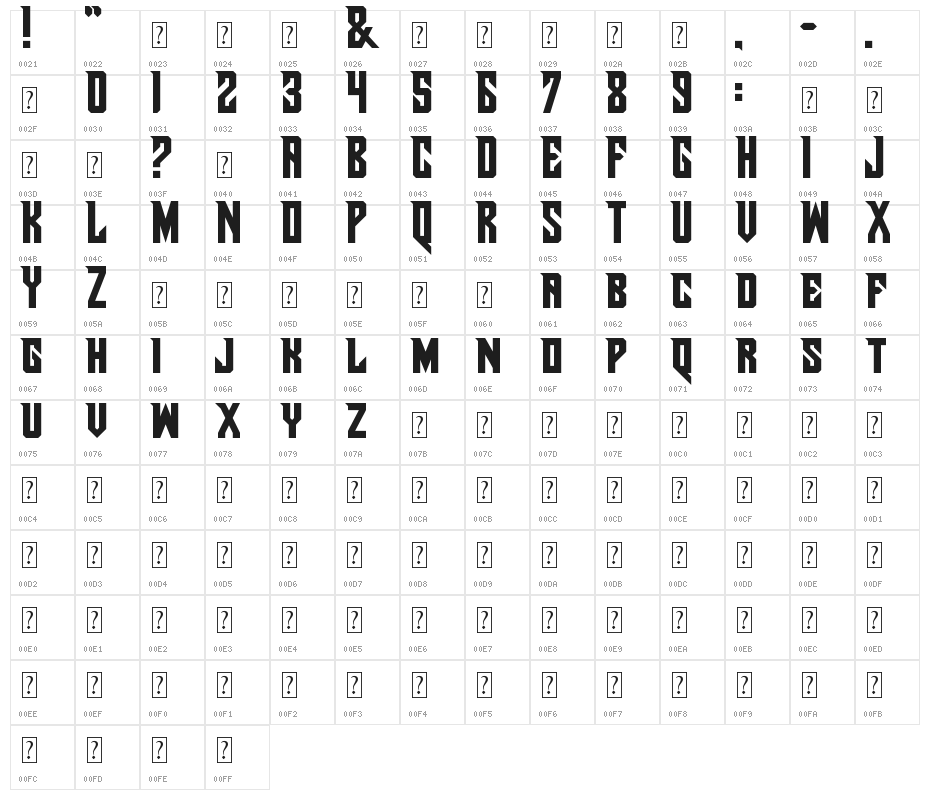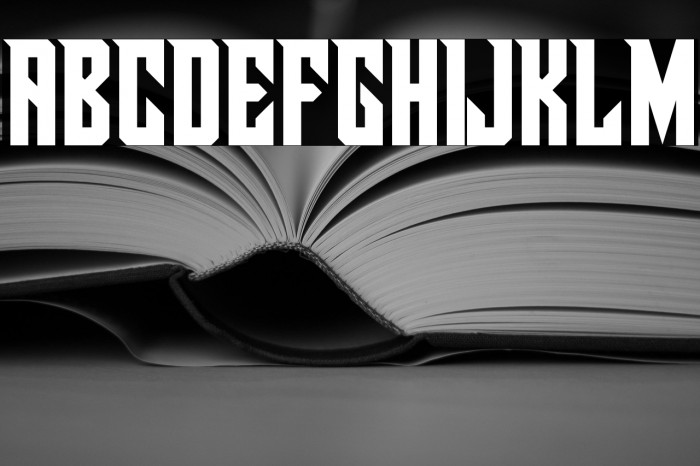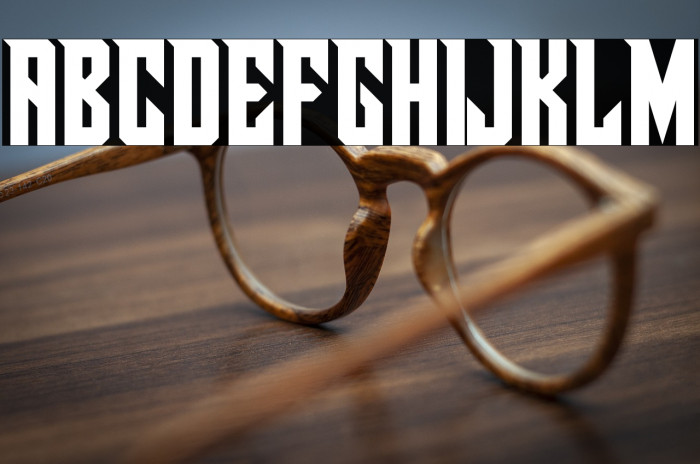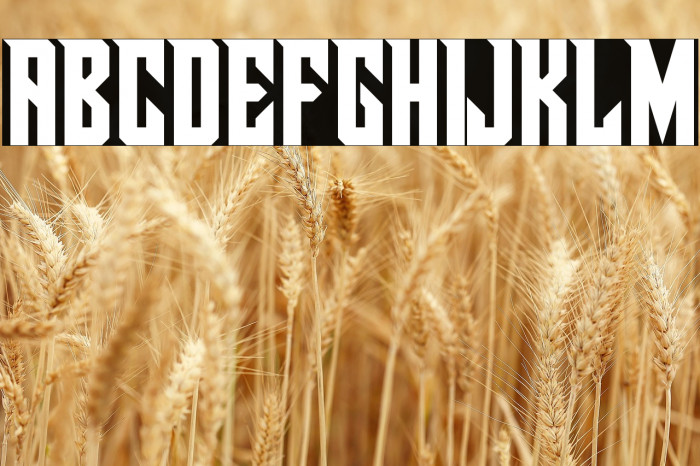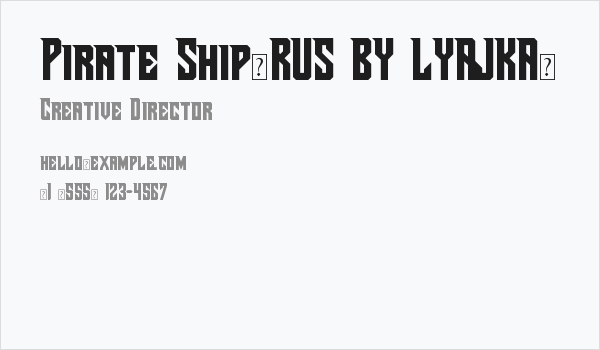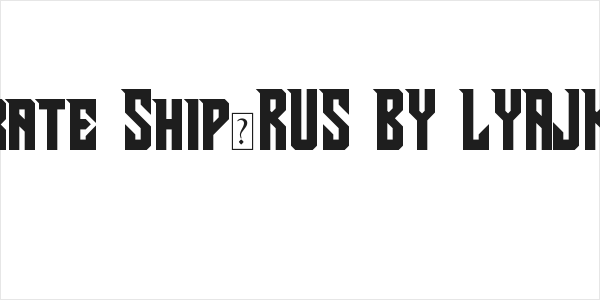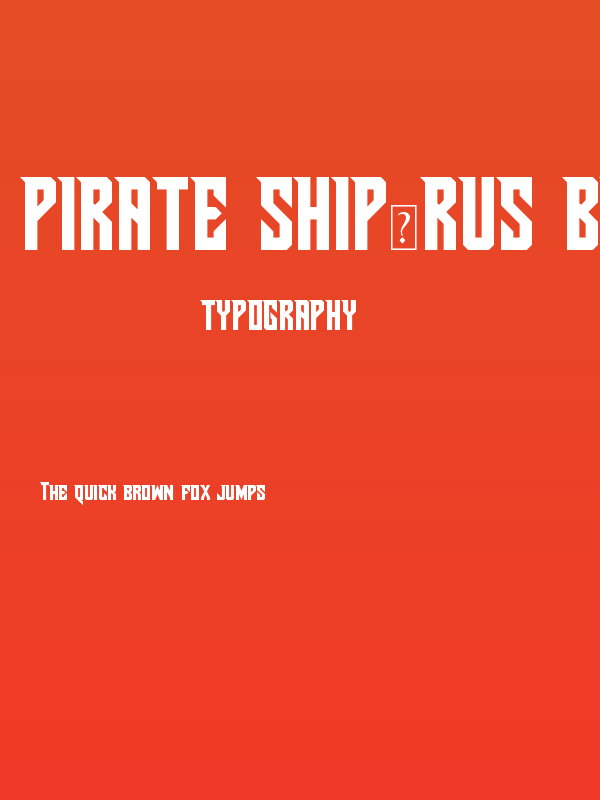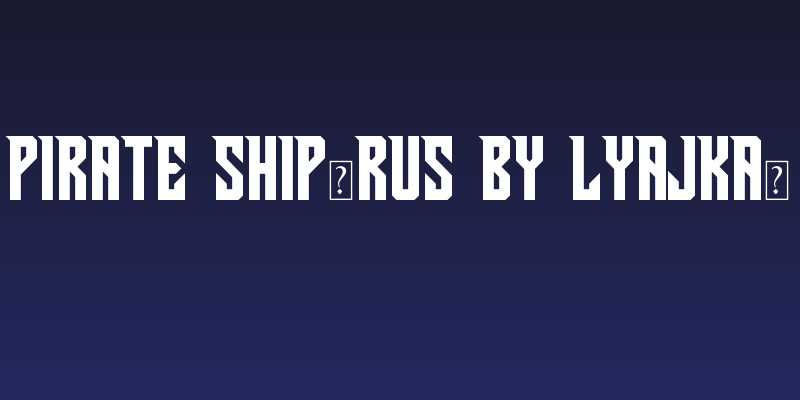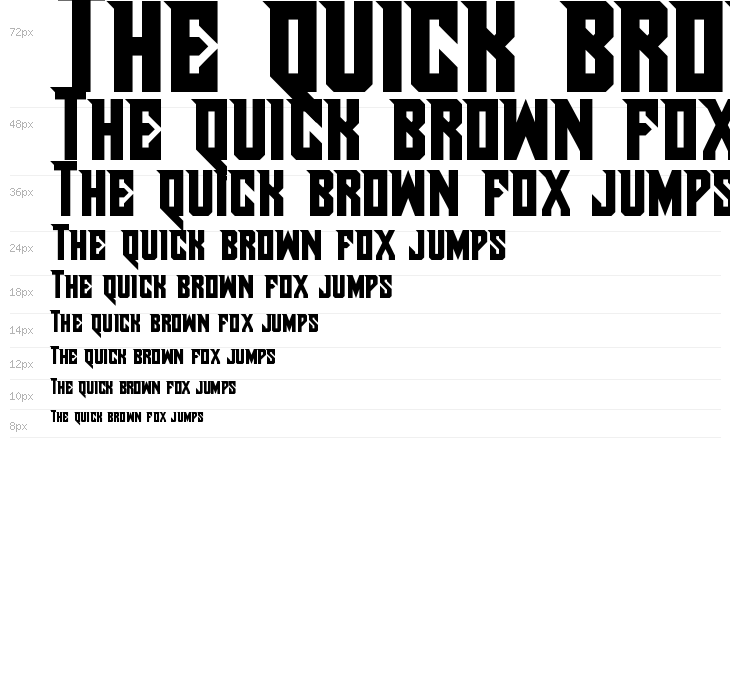
Pirate Ship(RUS BY LYAJKA) Font
Pirate Ship(RUS BY LYAJKA) Description
This font features a bold and striking design with sharp, angular edges and a distinct geometric style. The uppercase letters are particularly prominent, with a strong presence that commands attention. The numbers and special characters maintain this bold aesthetic, ensuring consistency throughout. The font's unique style is reminiscent of pirate-themed or nautical designs, making it ideal for projects that require a dramatic and adventurous look. Its high contrast and decorative elements make it stand out, while the consistent width and spacing provide a balanced appearance.
| Proposed Projects | Ideal for themed posters, event invitations, video game graphics, and branding for adventurous or nautical-themed products. |